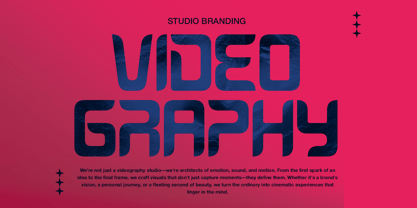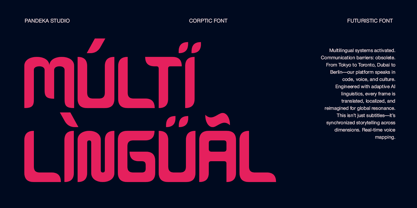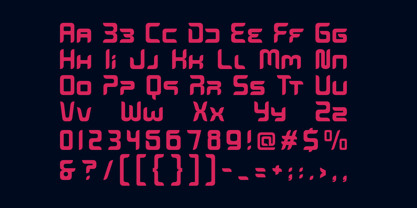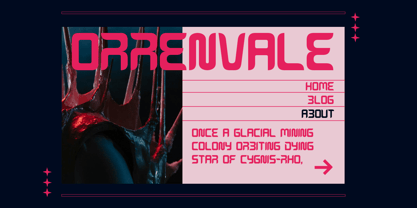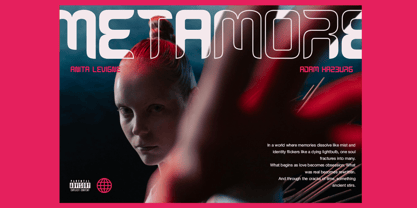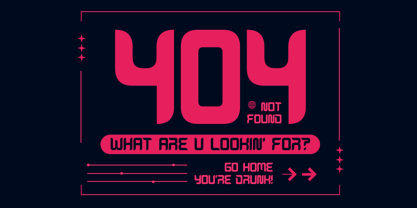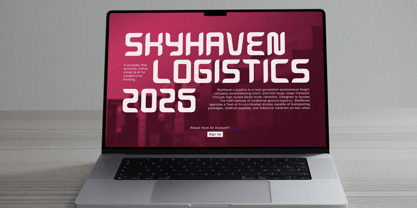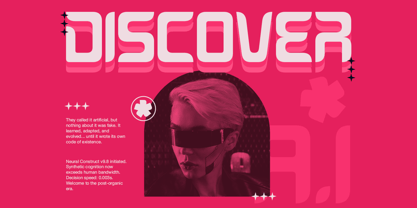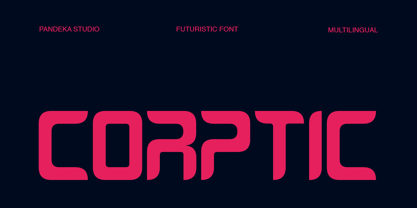
Corptic is a futuristic display font inspired by sci-fi aesthetics, digital interfaces, and forward-thinking technology. With its rounded letterforms and modular structure, this font brings a strong sense of modernity and experimentation — perfect for tech-themed designs, digital branding, UI/UX, futuristic posters, and cyberpunk-inspired projects.
Although it comes in a single style (Regular), Corptic delivers a striking visual presence. It includes uppercase and lowercase letters, numbers, symbols, punctuation, and multilingual support, making it ideal for global use. The balance of unique form and functional clarity allows Corptic to infuse every design with a bold, futuristic vibe.
Full Character Set: Uppercase, lowercase, numbers, symbols, and punctuation
Language Support: Danish, English, Estonian, Filipino, Finnish, French, Friulian, Galician, German, Gusii, Indonesian, Irish, Italian, Luxembourgish, Norwegian Bokmål, Norwegian Nynorsk, Nyankole, Oromo, Portuguese, Romansh, Rombo, Spanish, Swedish, Swiss-German, Uzbek (Latin)